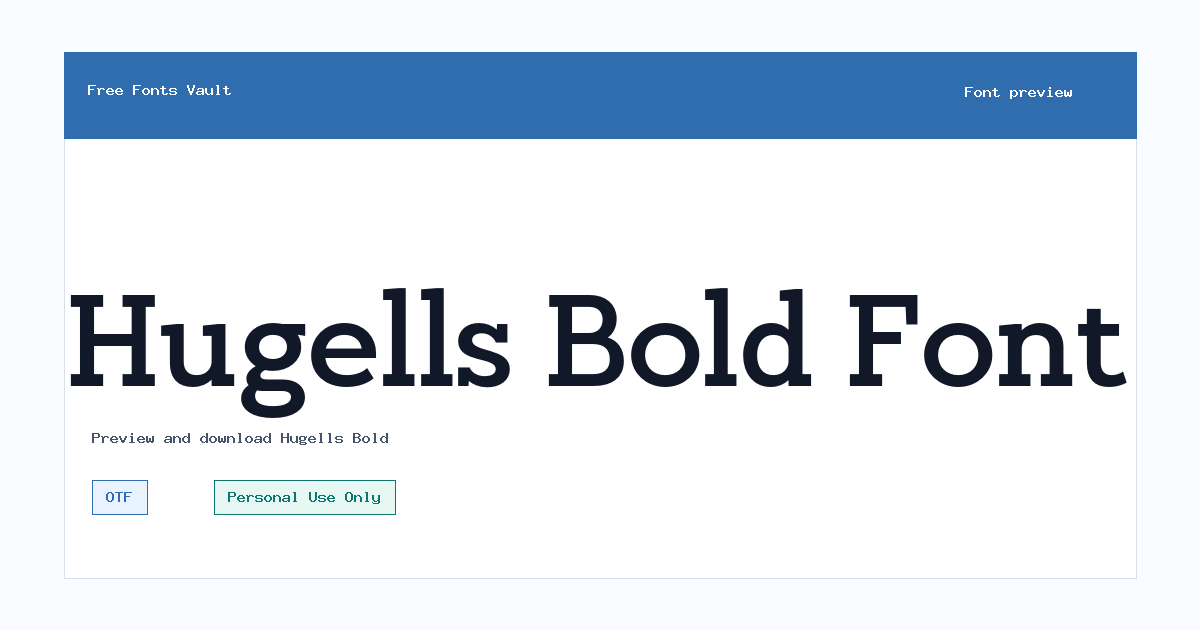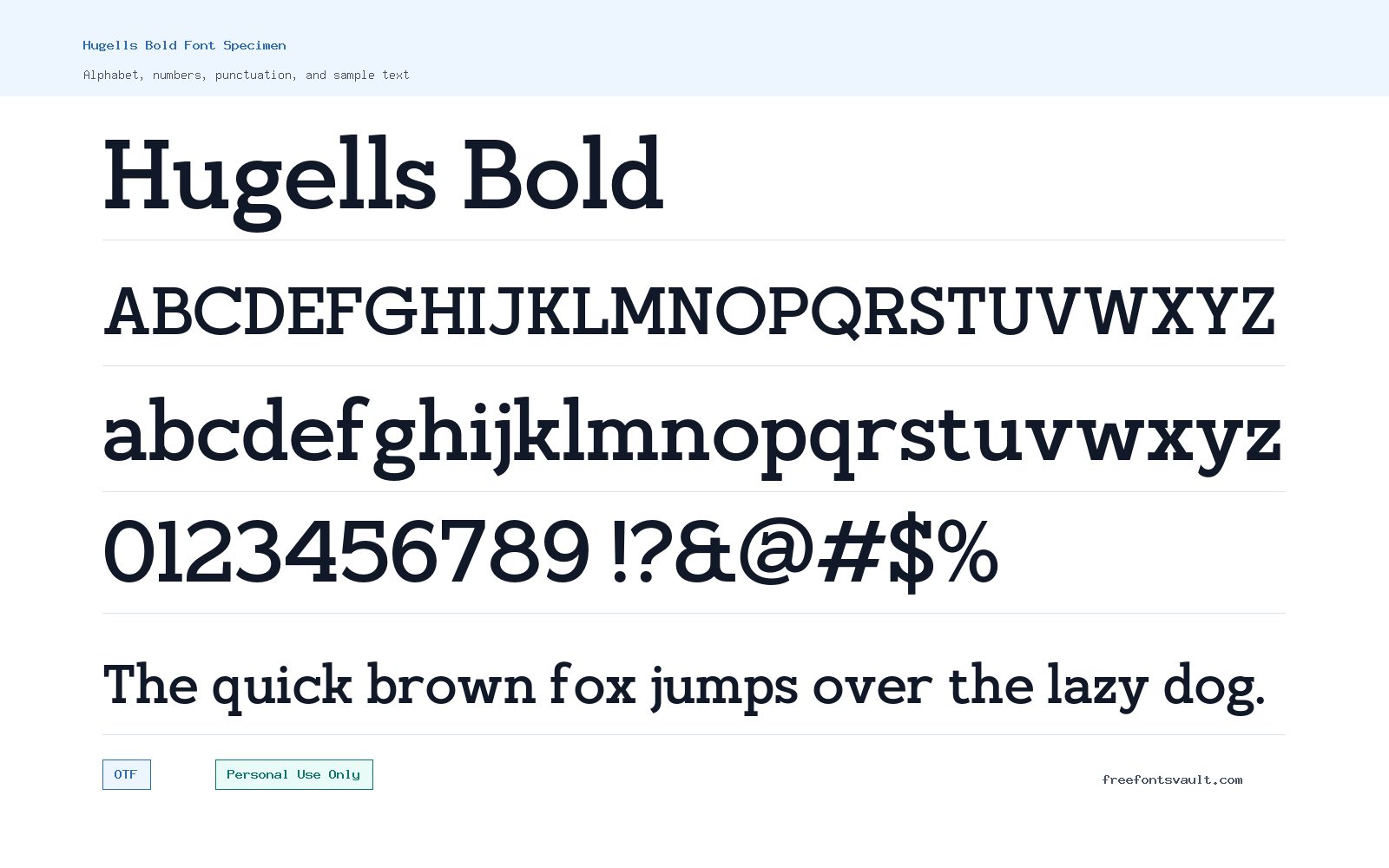
Hugells Bold
- Designer Habib Alfatul Akbar
- Foundry Arterfak Project
Hugells Bold is a strong, weighty slab serif font with a 700-weight OTF file for display-focused design. It is best treated as a headline and branding-style font rather than a long-reading text face.
About Hugells Bold
Hugells Bold is designed for moments where the type needs to feel solid, clear, and visually present. The name and license information identify it as a slab serif style, so visitors can expect a sturdier serif personality than a delicate book face or a neutral sans serif. Its bold weight gives short words and compact phrases more impact, which makes it useful for poster titles, badge-style graphics, social media headers, packaging mockups, and logo exploration. Because only one regular bold OTF file is listed, the font is simplest to use when the design needs one confident display weight rather than a full family with italics, light weights, or text cuts.
For best results, test Hugells Bold with the exact words you plan to use before downloading it for a project. Slab serif display fonts can look excellent in short names, labels, signs, and title lines, but they may become heavy if used for long paragraphs. Try it in uppercase and title case, check the spacing around wide and narrow letters, and preview punctuation if your design needs prices, dates, or taglines. In logo work, use it as a starting point and then refine spacing, scale, and letter relationships by hand. For posters and web mockups, give the font enough breathing room so the bold forms do not crowd the layout.
- Bold 700-weight style suited to headlines, titles, and short display text.
- Slab serif character, giving words a firm and structured appearance.
- Single regular variant, making it straightforward to test when a project needs one bold display voice.
- Works best at larger sizes where the weight and serif details can be seen clearly.
- Poster headlines and event title graphics
- Logo drafts, wordmarks, and badge-style branding concepts
- Social media banners, quote cards, and announcement images
- Packaging mockups, labels, stickers, and merch concepts
- Website hero headings and landing page mockups
- Short editorial titles where a strong serif voice is needed
Use Hugells Bold where the text is short and important. It can carry a headline, logo concept, or poster title, but it should be paired with a simpler text font for descriptions, menus, captions, and body copy. A clean sans serif can keep layouts modern and readable, while a quiet serif can work if you want a more editorial feel. Avoid pairing it with another heavy decorative font, because two loud display faces may compete. If you use it in web mockups, test the OTF in your design tool first and confirm web licensing separately before using it on a live site.
What kind of font is Hugells Bold?
Hugells Bold is identified as a bold slab serif font. It is best suited to display use, such as headlines, posters, labels, and logo drafts.
Is Hugells Bold good for body text?
It is better for short display text. For paragraphs, pair it with a simpler, more readable font and keep Hugells Bold for headings or emphasis.
Who designed Hugells Bold?
Hugells Bold is credited to Habib Alfatul Akbar, with Arterfak Project listed as the foundry.